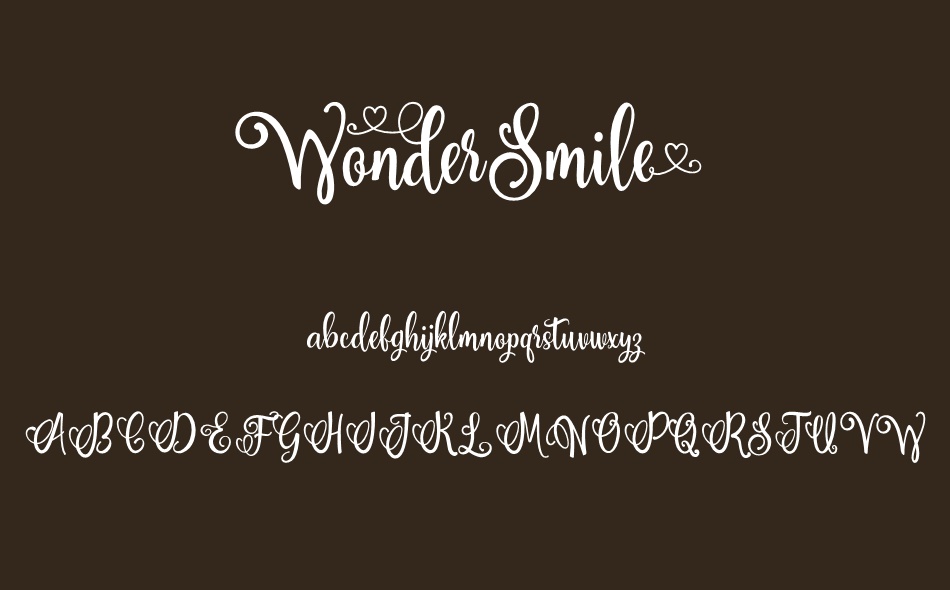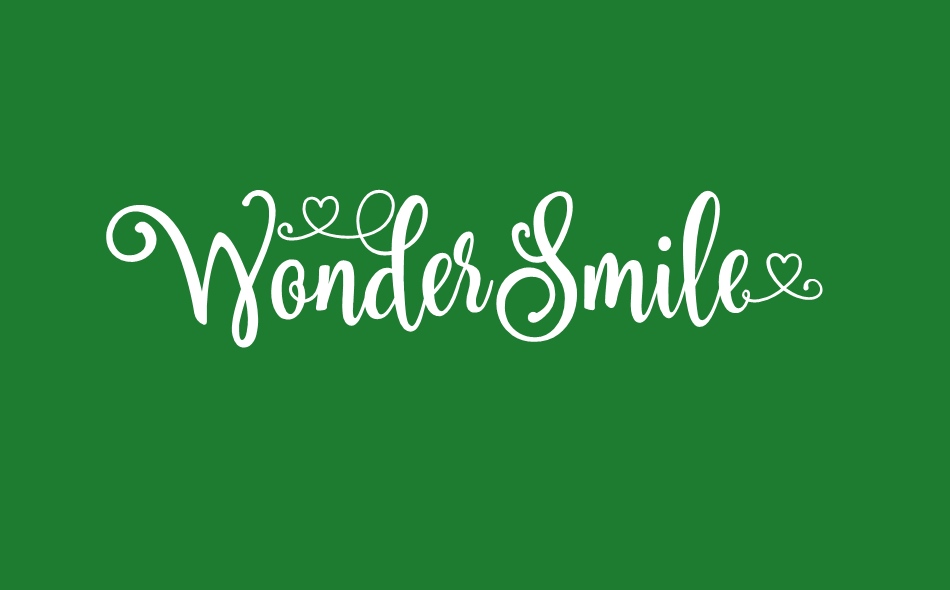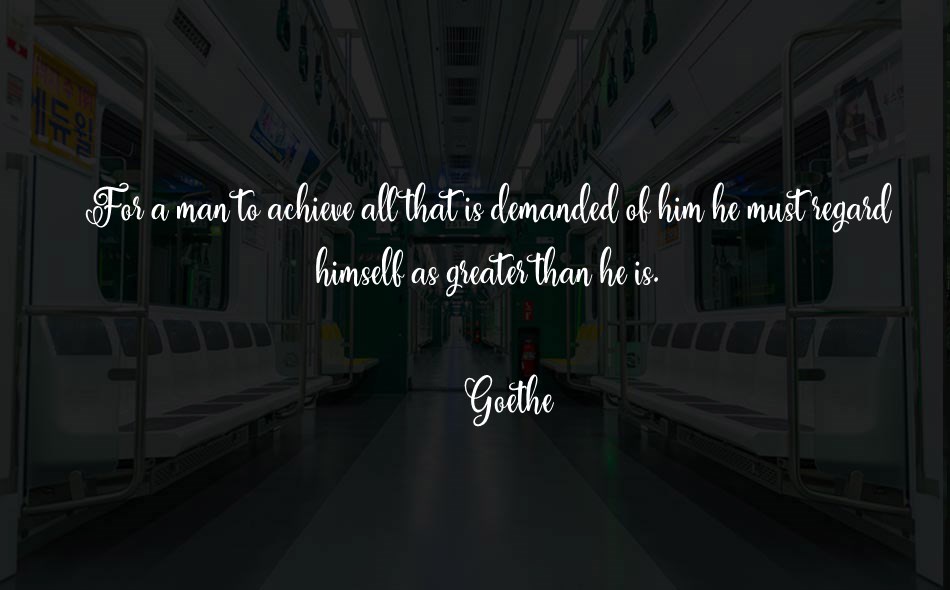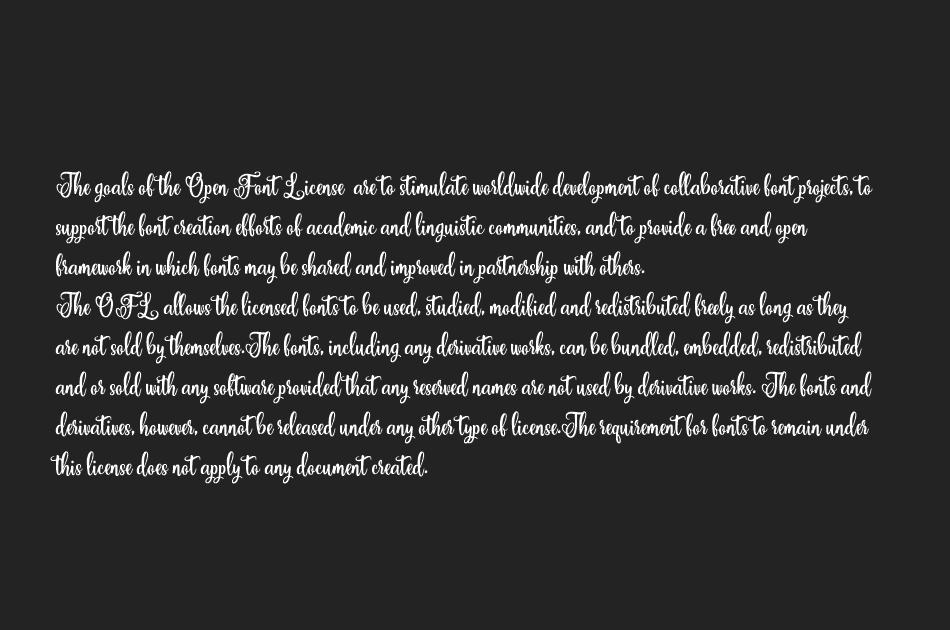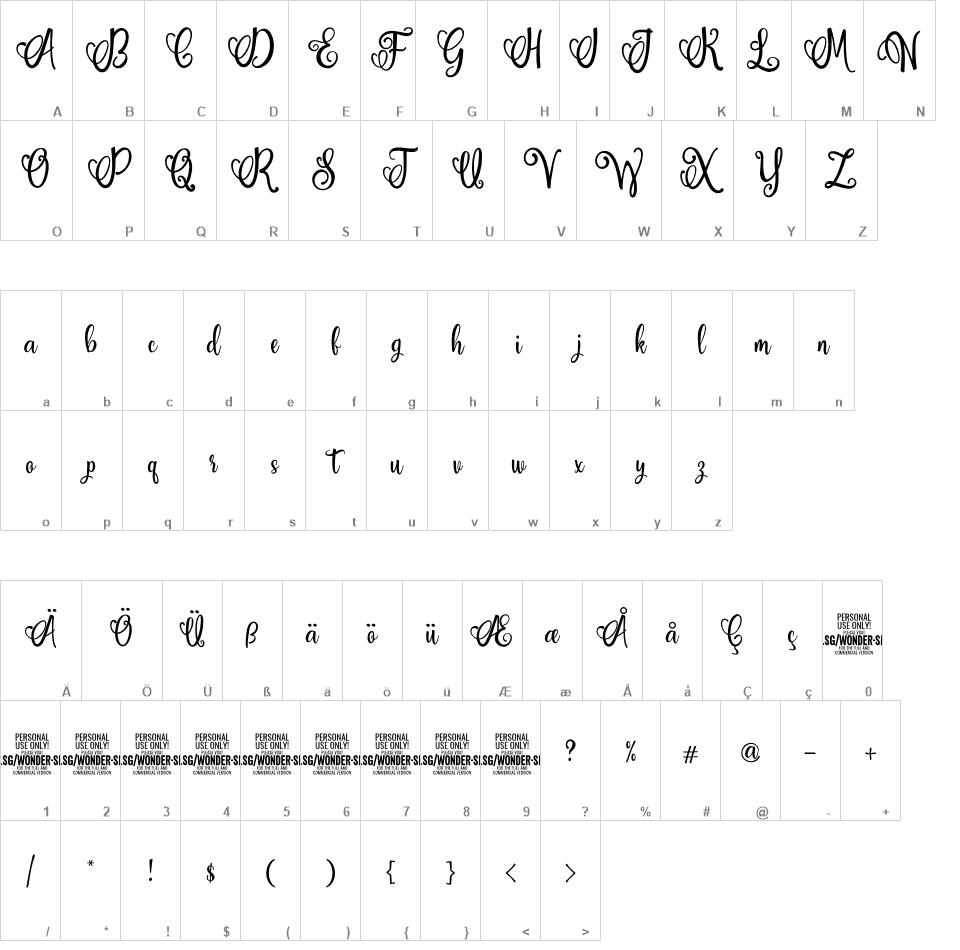
Wonder Smile font
Use underscore _ before or after any letter to make cute heart decorations.
Example: _beauty_
Write # after any letter to make a swash.
Example: Wand#er
Wonder Smile is a lovely script typeface.
With a quirky character, this optimistic and charming lettering will give any project a naive and happy appearance. In a hand-drawn style, Wonder Smile is your rustic and down-to-earth calligraphic font.
Use underscore _ before or after any letter to make cute heart decorations.
Example: _beauty_
Write # after any letter to make a swash.
Example: Wand#er
The Wonder Smile typeface family consist of four diverse styles: Regular, Italic, Bold and Bold Italic.
The font is built with advanced OpenType functionality and has a guaranteed top-notch quality, containing stylistic and contextual alternates, ligatures and more features; all to give you full control and customizability.
It has extensive lingual support, covering all Latin-based languages, from Northern Europe to South Africa, from America to South-East Asia.
It contains all characters and symbols you'll ever need, including all punctuation and numbers.